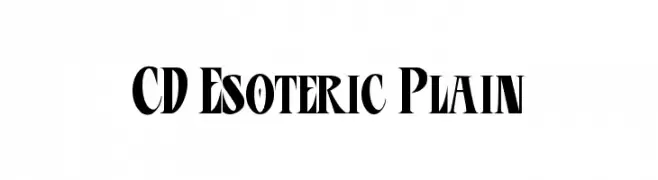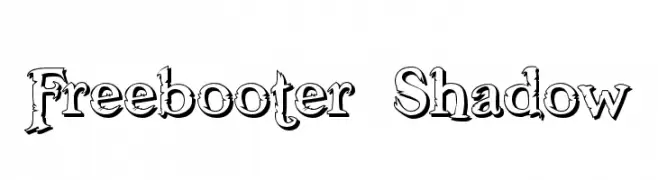
( Fonts by or from www.graffitifonts.net )
A bold, dripping font with a dramatic and fluid style.
( Fonts by Typearound )
A bold, distressed font resembling lipstick smudges, perfect for dramatic and playful designs.
A bold, blackletter-inspired font with dramatic, angular strokes.
( Fonts by Daniel Gauthier )
A bold, gothic-inspired font with sharp, angular edges and a dramatic flair.
A bold, decorative font with a shadow effect and intricate details.
( Fonts by Emerald City Fontwerks - Steven J. Lundeen - www.speakeasy.org/~ecf/ )
A bold, boxed decorative font with integrated clock illustrations.